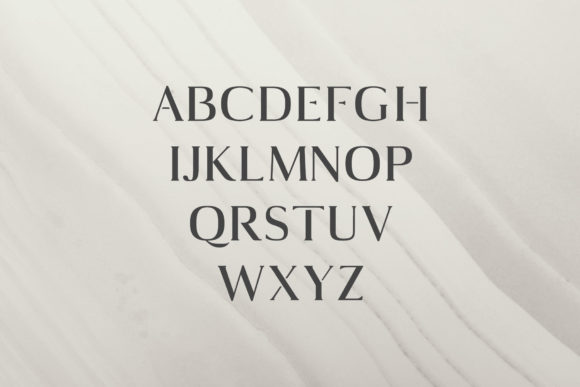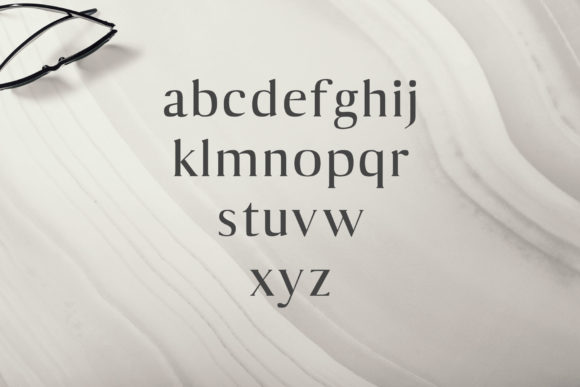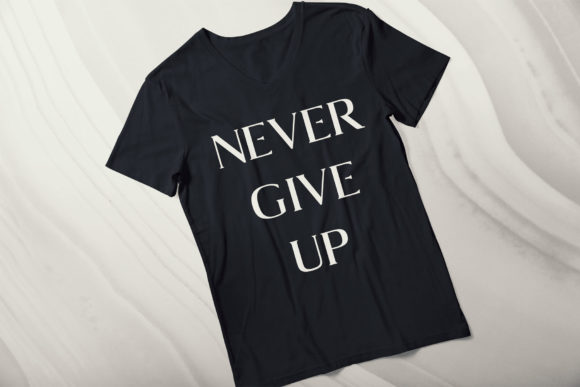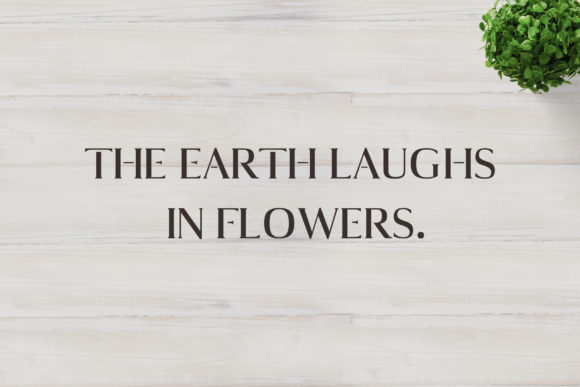
Introduction to Maaz Family Font Font
Fonts play a crucial role in design, and the Maaz Family Font font is a typeface that brings both character and versatility to any project. Whether you’re working on a branding project, a website, or a print design, the Maaz Family Font font offers a unique style that can elevate your work.
Maaz is the perfect serif font family to create sleek and elegant logo designs and headlines.
It pairs well with any other font or style, and it will take your designs to the highest levels .
Key Features of Maaz Family Font Font
Why Choose Maaz Family Font Font?
The Maaz Family Font font is more than just a typeface – it’s a design tool that helps you communicate your message with style and clarity. Its unique character set and versatile design make it suitable for a wide range of applications, from elegant invitations to bold headlines.
With its carefully crafted letterforms and balanced proportions, the Maaz Family Font font ensures readability and visual appeal across all mediums.
What makes Maaz Family Font font special?
The Maaz Family Font font stands out with its unique design, exceptional readability, and versatility across various design applications.